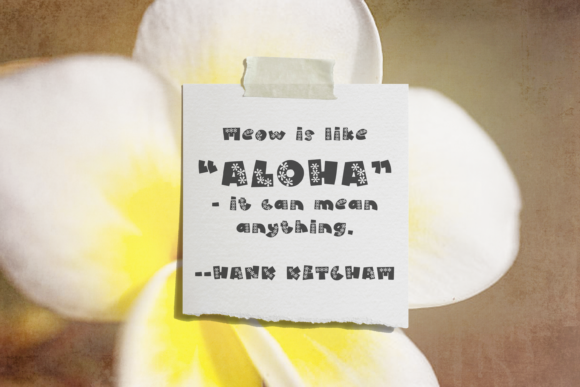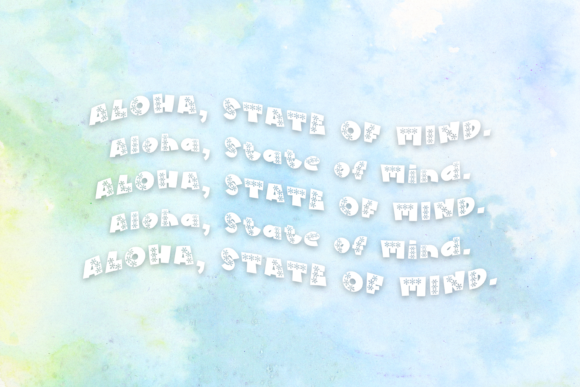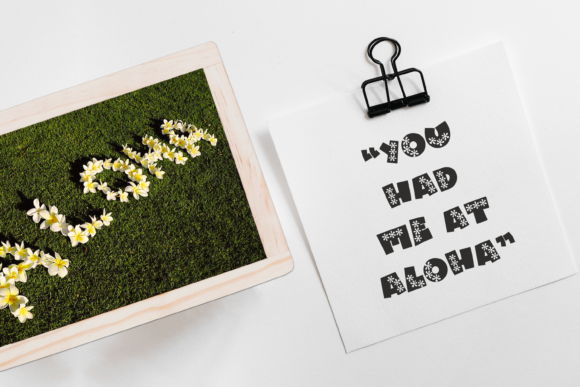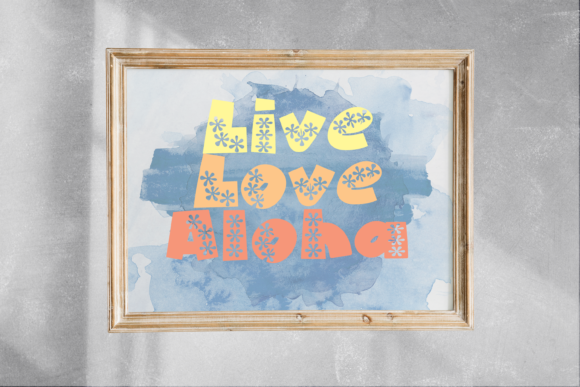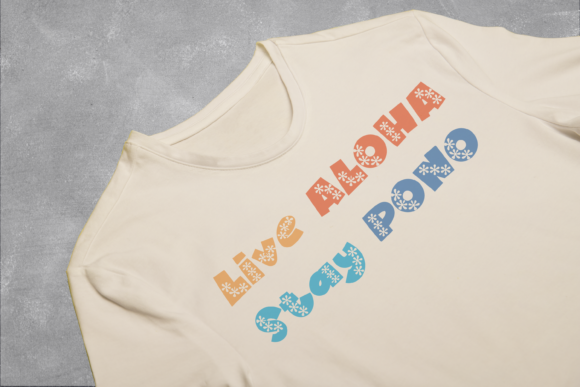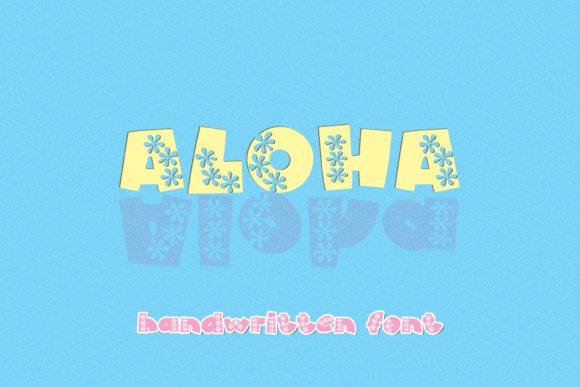
Aloha Font: Add a Touch of Tropical Charm to Your Designs
The Aloha decorative font has taken the design world by storm, and for good reason. This beautiful font features cute flower patterns inside each letter, making it a stunning choice for tropical-themed invitations, businesses, or events. In this article, we’ll dive into the world of Aloha Font, exploring its unique features, uses, and benefits for designers and crafters.
What is Aloha Font?
Aloha Font is a decorative font that boasts an eye-catching design, with intricate flower patterns woven into each letter. This charming font is perfect for adding a touch of tropical flair to any design project. Whether you’re creating invitations, business cards, or event branding, Aloha Font is sure to make your work stand out.
Unique Features of Aloha Font
So, what makes Aloha Font so special? Here are a few of its unique features:
- Intricate flower patterns: Each letter in the Aloha Font features delicate flower patterns, adding a touch of whimsy and charm to your designs.
- Tropical vibe: The font’s tropical inspiration makes it perfect for designs that require a laid-back, beachy feel.
- Decorative and elegant: Aloha Font is both decorative and elegant, making it suitable for a wide range of design projects, from formal events to casual gatherings.
Uses for Aloha Font
Aloha Font is incredibly versatile, and its uses are endless. Here are a few ideas to get you started:
- Tropical-themed invitations: Use Aloha Font to create stunning invitations for beach weddings, luaus, or other tropical-themed events.
- Business branding: Add a touch of tropical charm to your business cards, letterheads, or website with Aloha Font.
- Event design: Use Aloha Font to create eye-catching event branding, including signage, banners, and flyers.
- Stationery and gifts: Add a personal touch to your stationery, gift tags, or gift wrapping with Aloha Font.
Aloha Font offers a range of benefits for designers and crafters, including:
- Customization: The font’s unique design allows for endless customization options, so you can tailor your designs to suit your needs.
- Time-saving: With Aloha Font, you can create stunning designs in no time, saving you hours of design time.
- Inspiration: Aloha Font is sure to inspire your creativity, helping you to come up with fresh and innovative design ideas.
Tips for Using Aloha Font
Here are a few tips for getting the most out of Aloha Font:
- Pair with complementary fonts: Pair Aloha Font with complementary fonts to create a unique and visually appealing design.
- Experiment with colors: Don’t be afraid to experiment with different colors and textures to add depth and interest to your designs.
- Use in combination with graphics: Combine Aloha Font with tropical graphics, such as palm trees or floral patterns, to create a cohesive and eye-catching design.
Aloha Font is a beautiful and versatile decorative font that’s perfect for adding a touch of tropical charm to your designs. With its intricate flower patterns, tropical vibe, and decorative elegance, this font is sure to inspire your creativity and take your designs to the next level. Whether you’re a designer or crafter, Aloha Font is a must-have addition to your toolkit.